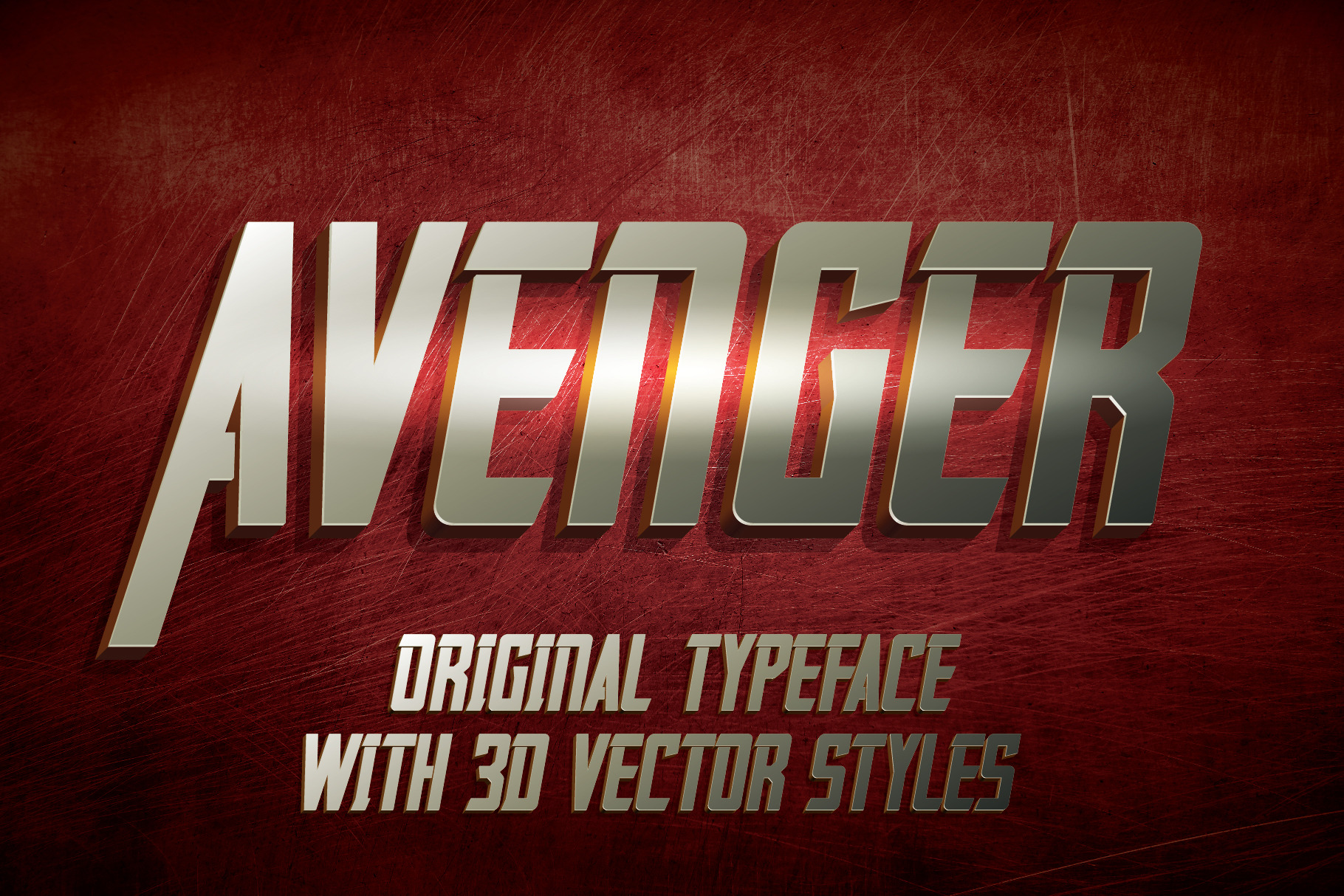
Avenger label typeface
Introducing a vintage look label typeface named "Avenger". This typeface was inspired by comics books, movies etc. This font will good viewed on any sirous design like poster, t-shirt, label, logo etc.